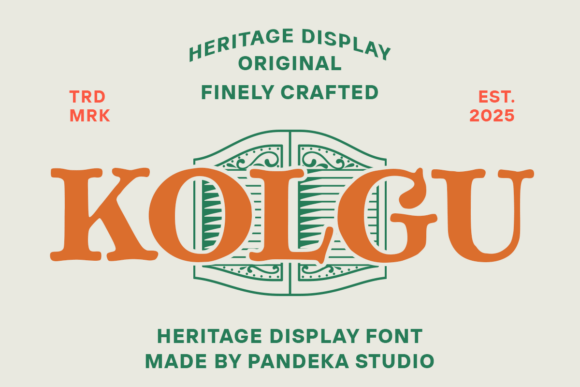
Introducing Kolgu Font: A Timeless Vintage Serif Typeface
Kolgu Font, also known as Kolgu – Heritage Serif Typeface, is a classic serif font that exudes a timeless vintage aesthetic, blending elegance and bold character. This refined typeface is ideal for heritage branding, editorial design, packaging, book covers, and sophisticated typography, bringing a unique touch to any project.
The Story Behind Kolgu Font
Kolgu Font is a carefully crafted typeface that draws inspiration from traditional serif fonts, with a modern twist. Its name “Kolgu” is derived from the Korean word for ” heritage” or “legacy,” reflecting the font’s intention to evoke a sense of classic elegance and sophistication. The creators of Kolgu Font aimed to design a font that would be versatile, legible, and visually appealing, making it suitable for a wide range of applications.
Key Features of Kolgu Font
Kolgu Font boasts several key features that make it an attractive choice for designers:
- Classic Serif Design: Kolgu Font features a traditional serif design, with subtle flourishes and elegant lines.
- Timeless Aesthetic: The font’s vintage aesthetic ensures that it remains relevant and stylish, even in modern designs.
- Elegant and Bold Character: Kolgu Font strikes a perfect balance between elegance and boldness, making it suitable for a wide range of applications.
- High Legibility: The font’s clear and concise design ensures excellent legibility, even at smaller font sizes.
Use Cases for Kolgu Font
Kolgu Font is an incredibly versatile typeface, suitable for various design projects:
- Heritage Branding: Kolgu Font is ideal for brands looking to evoke a sense of tradition, legacy, and sophistication.
- Editorial Design: The font’s classic design makes it perfect for editorial projects, such as magazines, newspapers, and books.
- Packaging Design: Kolgu Font can add a touch of elegance and refinement to packaging designs, making products stand out on store shelves.
- Book Covers: The font’s bold character and classic design make it an excellent choice for book covers, particularly for fiction, non-fiction, and historical titles.
- Sophisticated Typography: Kolgu Font can be used to create stunning typographic designs, such as posters, flyers, and brochures.
Benefits of Using Kolgu Font
Kolgu Font offers several benefits to designers and brands:
- Unique and Refined Look: Kolgu Font brings a unique and refined touch to any project, setting it apart from more generic fonts.
- Improved Legibility: The font’s clear design ensures excellent legibility, making it easier for audiences to engage with content.
- Enhanced Brand Identity: Kolgu Font can help brands establish a strong, sophisticated identity that resonates with their target audience.
- Flexibility: The font’s versatility makes it suitable for a wide range of applications, from digital designs to print materials.
Kolgu Font in Digital Design
Kolgu Font is not only suitable for print designs but also for digital applications:
- Web Design: The font’s clear design ensures excellent legibility on digital screens, making it perfect for websites, blogs, and online publications.
- Mobile Apps: Kolgu Font can be used to create visually appealing and user-friendly mobile apps.
- Digital Advertising: The font’s bold character and classic design make it an excellent choice for digital advertising, such as display ads and social media graphics.
Tips for Using Kolgu Font Effectively
To get the most out of Kolgu Font, consider the following tips:
- Pair with Other Fonts: Kolgu Font can be paired with other fonts to create visually appealing and harmonious designs.
- Experiment with Font Sizes: The font’s legibility ensures that it remains clear even at smaller font sizes, making it suitable for body text and headings.
- Use Bold and Italic Styles: Kolgu Font’s bold and italic styles can add emphasis and create visual interest in designs.
Kolgu Font is a timeless vintage serif typeface that brings elegance, sophistication, and bold character to any design project. Its versatility, legibility, and unique aesthetic make it an excellent choice for heritage branding, editorial design, packaging, book covers, and sophisticated typography. By incorporating Kolgu Font into your designs, you can create visually appealing and effective projects that resonate with your target audience.